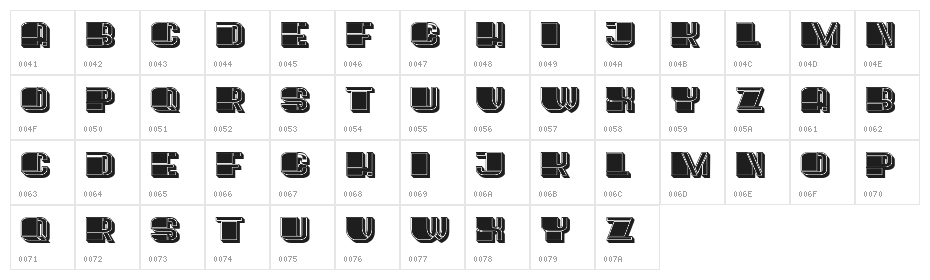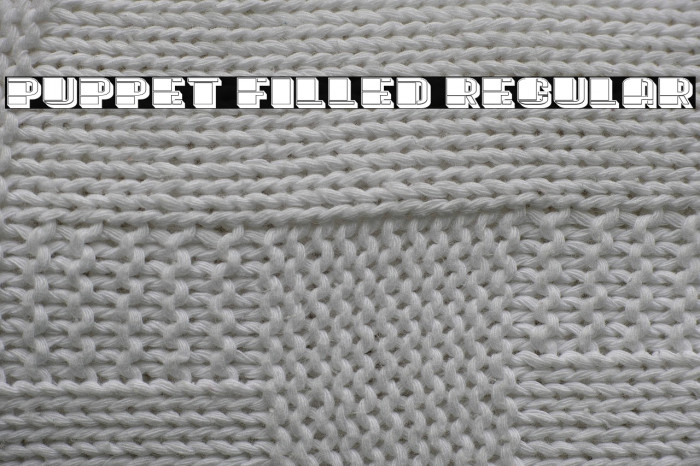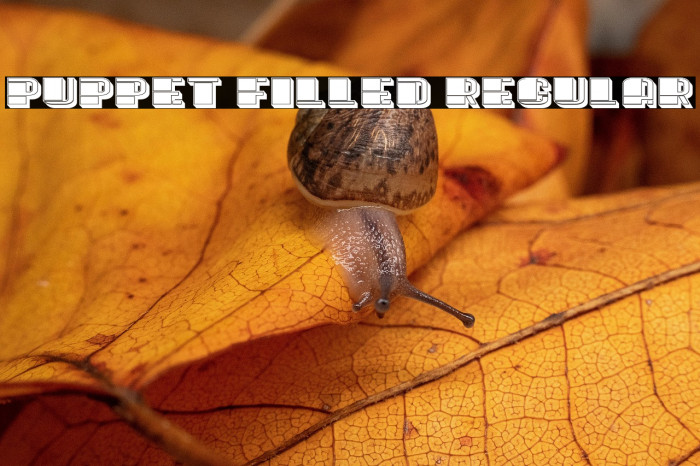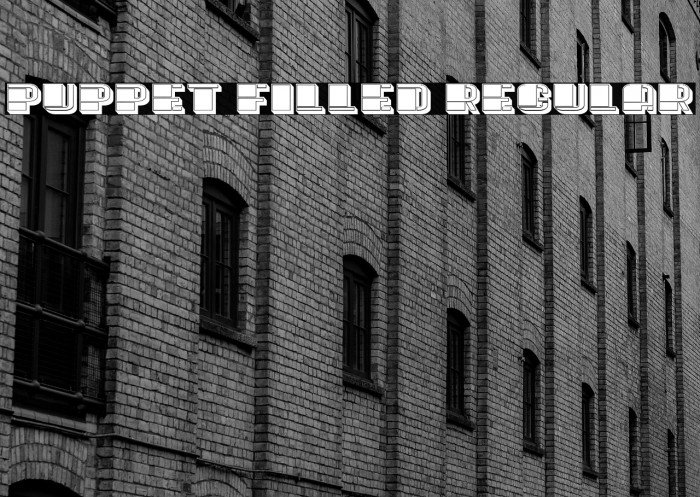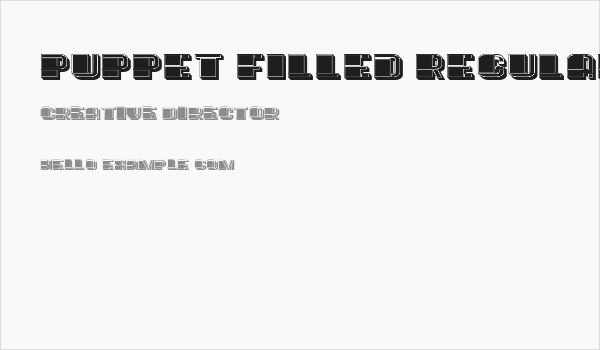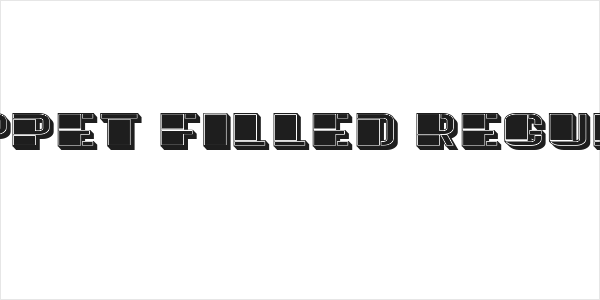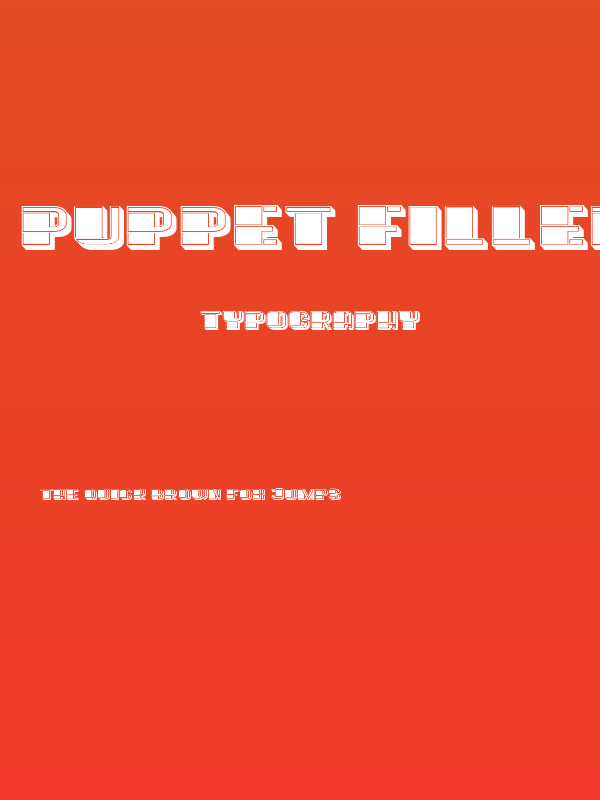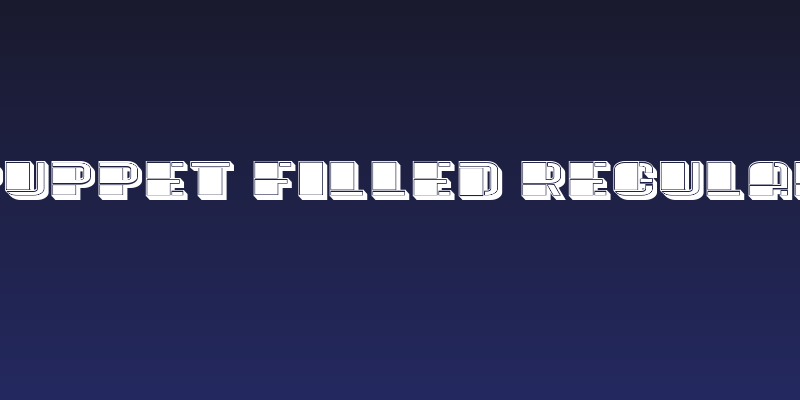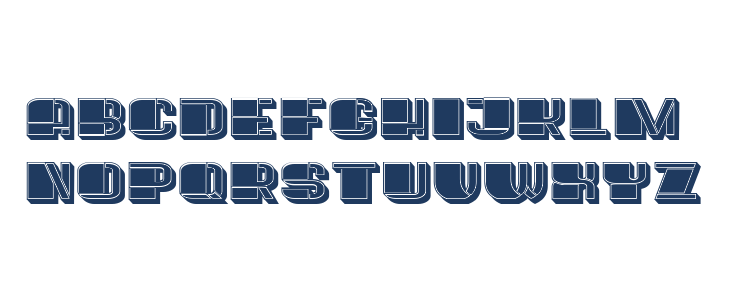
Puppet Filled Regular Font
Puppet Filled Regular Description
This font features a bold and striking design with a three-dimensional effect, created by its filled and outlined style. The characters are blocky and robust, giving a sense of strength and presence. The geometric shapes are consistent throughout, with sharp angles and clean lines that enhance the modern and industrial feel. The font's unique shadowing effect adds depth, making it ideal for eye-catching displays. Its uppercase letters are uniform in height, contributing to a cohesive and structured appearance. The overall design is both playful and assertive, making it suitable for a variety of creative projects.
| Proposed Projects | Ideal for posters, logos, headlines, and branding materials that require a strong visual impact. |